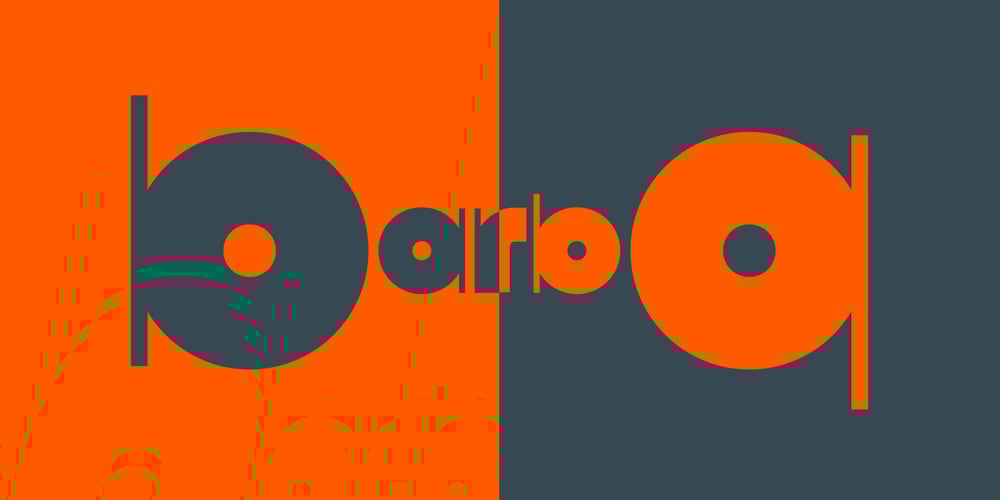
Barbecue Font Family was designed by Roman Shchyukin and published by Gaslight. Barbecue contains 2 styles and family package options. Experimental, geometric, bold sans. Ideal for posters. Only posters, only large size! If you want tranquility and prim punctuality Barbecue is not for you. If you want use Barbecue for body text – you’re crazy. If you want madness and hooliganism – Barbecue for you!